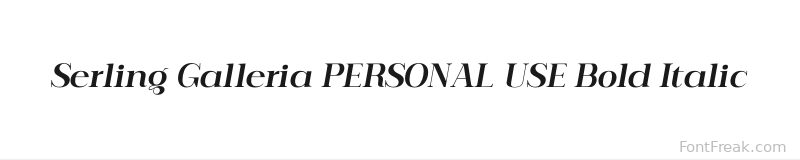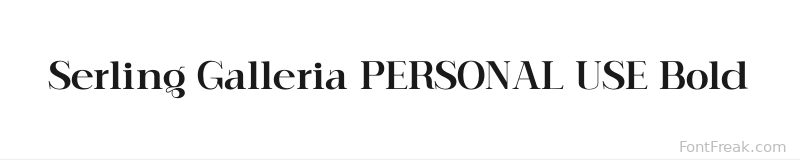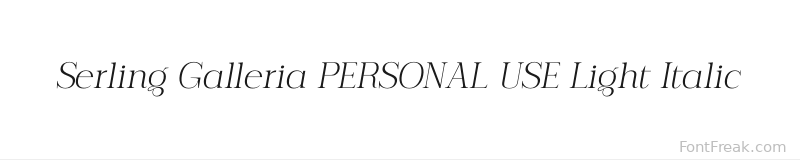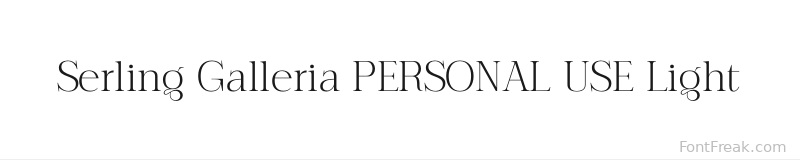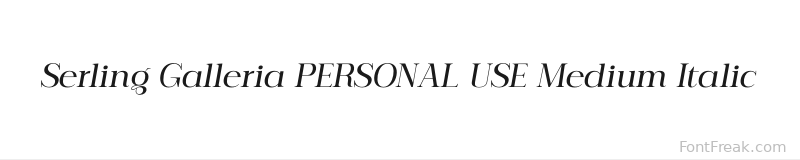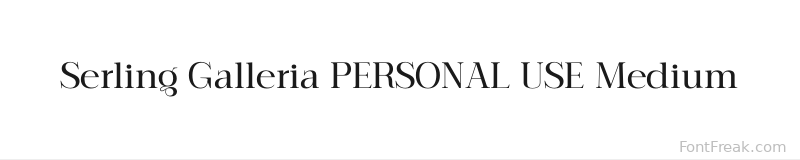
Serling Galleria PERSONAL USE Light Italic
About Serling Galleria PERSONAL USE Light Italic
The Serling Galleria PERSONAL USE Light Italic font by Mans Greback is a stunning serif typeface that exudes elegance and sophistication. This font showcases a graceful design with a light italic weight, making it perfect for projects that require a touch of style. The stroke weight is delicately balanced, presenting a subtle contrast that enhances readability while maintaining an artistic flair. The spacing is generous, allowing each letter to breathe, which contributes to an overall polished appearance.
Ideal use cases for this font include wedding invitations, where its romantic undertones can beautifully convey heartfelt messages. It also shines in branding for upscale restaurants, giving menus an inviting and refined look. Movie posters can benefit from its stylish aesthetic, drawing attention while maintaining an air of sophistication. Additionally, it is a great choice for greeting cards and personal stationery, allowing users to express their unique style in a tasteful manner.
The target audience for the Serling Galleria PERSONAL USE Light Italic font includes graphic designers looking for a sophisticated typeface to elevate their projects, small business owners aiming to enhance their branding, and content creators who are seeking a distinctive font to add a touch of elegance to their work.
What sets the Serling Galleria PERSONAL USE Light Italic font apart is its combination of classic serif characteristics with a contemporary twist, making it versatile for a variety of projects. Its free availability encourages creativity without the burden of licensing fees, allowing users to explore its potential in personal designs. For those seeking a refined and stylish typeface, the Serling Galleria PERSONAL USE Light Italic font free download is an exceptional choice.